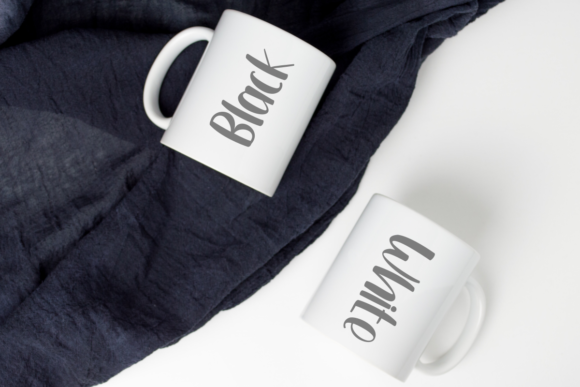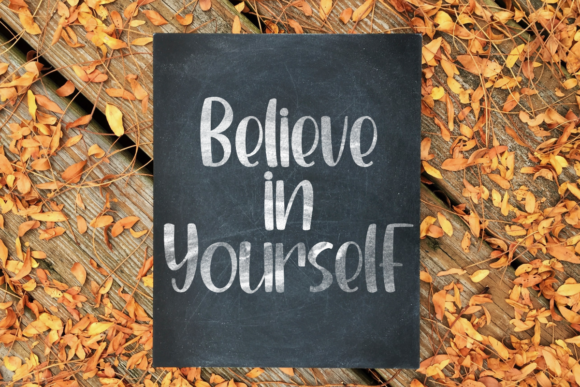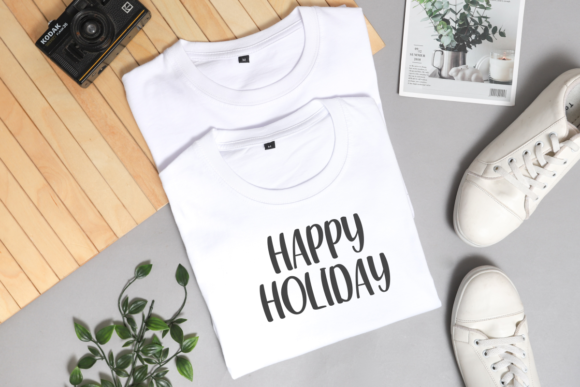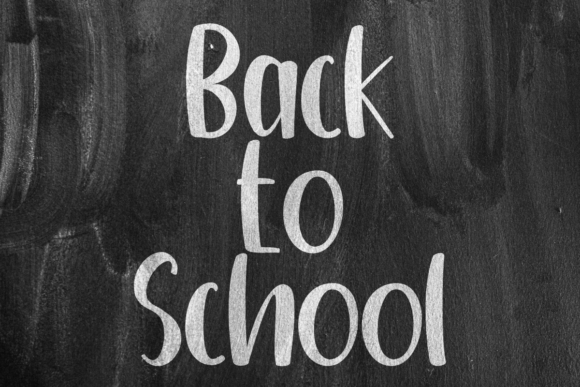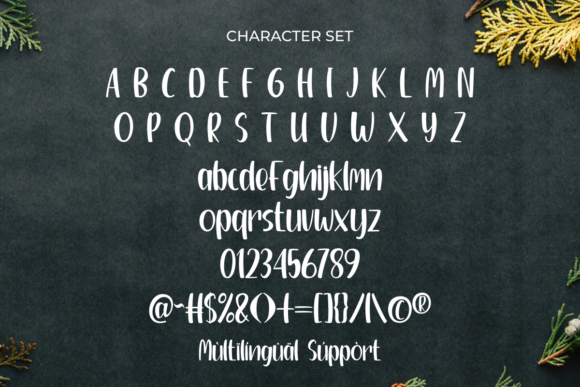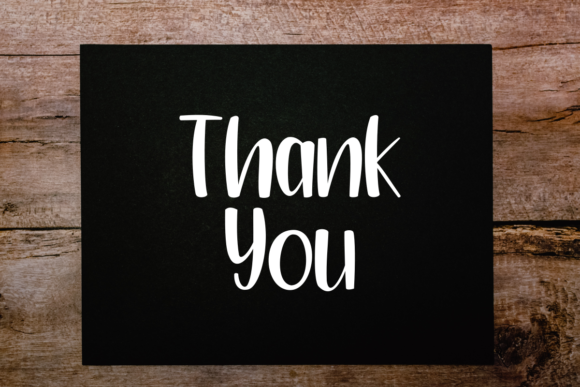
Withered Leaves Font
About Withered Leaves Font
Withered Leaves is a sweet and delicate handwritten font. Dainty and joyful, this font will be ideal for writing wedding invitations, cards, or any other design that may need a romantic, personalized touch!